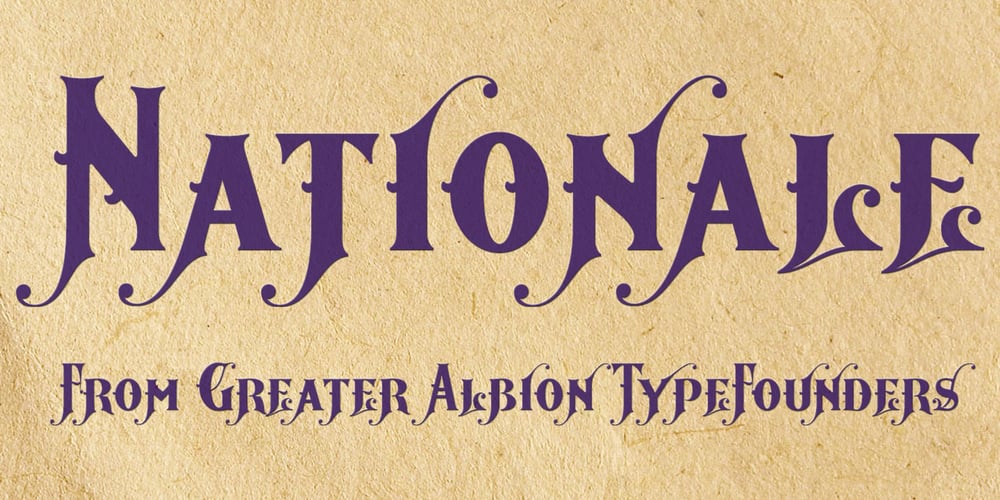
Nationale Font Family was designed by Paul James Lloyd and published by Greater Albion Typefounders. Nationale contains 1 styles and family package options. Nationale is inspired by the lettering of early 20th century share certificates and bonds. It includes a complete set of stylistic alternates for all letter forms, and two sizes of numerals. National speaks of the steam age, and the age of traditional design and engineering, when aesthetic concerns mattered just as much as function. Bring a touch of the elegant past to your work with Nationale.